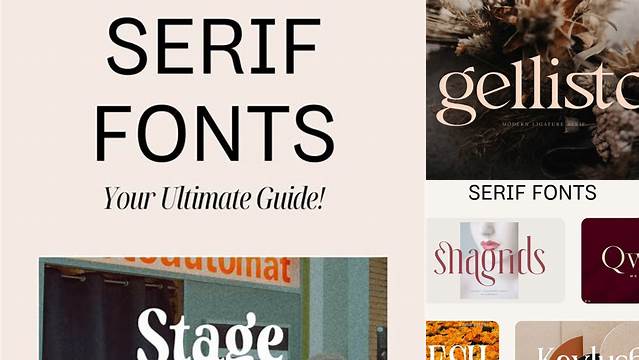
Serif Fonts On DaFont: Your Ultimate Guide
Hey guys! Ever wondered about those elegant, classic-looking fonts with the little feet? Those are serif fonts, and they're super popular for a reason. If you're on the hunt for some amazing serif fonts, DaFont is a treasure trove. Let's dive into the world of serif fonts on DaFont and explore everything you need to know to make the best choice for your projects.
1. What are Serif Fonts?
Before we jump into DaFont, let's quickly cover what serif fonts actually are. Serif fonts are characterized by the small decorative strokes, or “serifs,” at the end of the letters' main strokes. These serifs give the font a more traditional and formal appearance, making them ideal for body text in books, newspapers, and magazines. Think of Times New Roman or Georgia; they’re classics for a reason. Serif fonts have a long history, dating back to the early days of printing, and they convey a sense of authority and readability. Choosing the right serif fonts can elevate your design and add a touch of sophistication. The presence of serifs also aids the eye in tracking text, which is why serif fonts are often preferred for long-form content. So, whether you're designing a book, a website, or even a simple document, understanding the nuances of serif fonts is crucial.
2. Why Use Serif Fonts?
So, why should you even bother with serif fonts? Well, they’re incredibly versatile! They bring a sense of tradition and formality, making them perfect for professional documents, books, and websites aiming for a classic feel. The serifs guide the reader's eye, making long paragraphs easier to read. For instance, if you're creating a website for a law firm or a historical society, serif fonts can add that extra layer of credibility and seriousness. Plus, many studies have shown that serif fonts can improve readability in print, reducing eye strain and making the text more engaging. Think about how often you encounter serif fonts in newspapers and novels; it's because they work! Beyond readability, serif fonts also have an aesthetic appeal. They can add character and personality to your design, creating a visual hierarchy and drawing attention to key elements. So, if you’re looking to convey trust, tradition, or readability, serif fonts are definitely the way to go. Whether it's for a formal invitation or a corporate report, the right serif font can make a world of difference.
3. DaFont: A Goldmine for Fonts
DaFont is like the ultimate playground for font lovers. It's a massive online archive where you can find thousands of fonts, including a huge variety of serif fonts, and many of them are free for personal use! Navigating DaFont is super easy, and you can preview each font before you download it. The site allows you to type in custom text, so you can see exactly how a font will look with your words. Plus, many of the fonts come with different weights and styles, giving you even more flexibility. DaFont's user-friendly interface makes it simple to filter by category, so you can quickly narrow down your search to just serif fonts. You can also check out the comments and ratings from other users to get an idea of the font's quality and usability. And remember to check the licensing agreement for each font, as some are only free for personal use, while others can be used commercially. With such a vast selection and easy-to-use features, DaFont is an invaluable resource for designers, students, and anyone else who loves typography.
4. Navigating Serif Fonts on DaFont
Okay, let’s get practical. When you land on DaFont, you’ll see a bunch of categories. Head straight to the “Serif” section. From there, you can filter by various subcategories like “Old School,” “Modern,” or “Fancy.” Play around with the filters to narrow your search. Want something elegant? Try the “Classic” or “Elegant” subcategories. Need something more readable for body text? Stick with “Regular” or “Basic.” Don't forget to use the preview text box to see how your specific words look in each font! This is super helpful because what looks good in a sample image might not work as well with your actual content. Another great feature is the ability to filter by license type, ensuring you’re only seeing fonts you can legally use for your project. DaFont also allows you to see fonts that are similar to one you like, which can help you discover new options you might not have found otherwise. So, take your time, explore the different serif fonts available, and find the perfect one for your needs. The more you explore, the better you’ll become at recognizing the subtle differences and unique characteristics of each font.
5. Popular Serif Font Styles on DaFont
DaFont offers a plethora of serif font styles. You’ve got your classic Old Style serifs, which are timeless and perfect for traditional projects. Then there are the Transitional serifs, a bit more modern and sleek. Slab serifs are bold and blocky, ideal for headlines or adding a vintage touch. And let’s not forget the Modern serifs, which are known for their high contrast and elegant lines. Each style brings a different vibe, so consider your project's overall tone when choosing. Old Style serifs, like Garamond and Caslon, evoke a sense of history and tradition, making them perfect for books or formal documents. Transitional serifs, such as Baskerville, offer a balance between classic and contemporary, working well in a variety of contexts. Slab serifs, like Courier New, have a strong, industrial feel, often used in vintage designs or for technical writing. Modern serifs, like Didot and Bodoni, exude sophistication and are frequently used in fashion magazines and high-end branding. By understanding these different styles, you can make a more informed choice and select the serif font that best aligns with your creative vision.
6. Classic Serif Fonts for Formal Projects
When it comes to formal projects, you can't go wrong with classic serif fonts. Think fonts like Times New Roman, Garamond, and Georgia. These fonts have a timeless elegance and are highly readable, making them ideal for documents like resumes, legal papers, or academic articles. Times New Roman is practically synonymous with professionalism, while Garamond adds a touch of sophistication. Georgia is another great option, especially for digital use, as it’s designed to be highly legible on screens. These classic serif fonts have stood the test of time because they are versatile and effective. They convey a sense of authority and tradition, making them perfect for any project that needs to be taken seriously. Beyond their readability, these fonts also have a certain visual appeal that adds to the overall impression of professionalism. For instance, using Garamond in a formal invitation can elevate the design and make it feel more refined. When selecting a classic serif font, consider the overall tone of your project and choose the font that best aligns with your message.
7. Modern Serif Fonts for a Contemporary Look
If you're aiming for a more contemporary vibe, modern serif fonts are your best bet. These fonts often have a higher contrast between thick and thin strokes, giving them a sleek and stylish appearance. Fonts like Didot and Bodoni are excellent examples. They’re often used in fashion magazines and high-end branding. Modern serif fonts can add a touch of elegance and sophistication to your designs, making them perfect for projects that need to look cutting-edge. However, it's important to use them judiciously, as their high contrast can sometimes make them less readable in large blocks of text. For headlines and shorter pieces of text, they can be incredibly impactful, drawing the eye and making a statement. When choosing a modern serif font, consider the overall aesthetic of your project and whether the font complements your other design elements. These fonts can be quite distinctive, so they work best when used in moderation and with careful attention to spacing and layout. The right modern serif font can transform your project from ordinary to extraordinary, adding a touch of sophistication and style.
8. Slab Serif Fonts for Bold Statements
Need to make a bold statement? Slab serif fonts are the way to go! These fonts have thick, block-like serifs that give them a strong and sturdy appearance. Think of fonts like Rockwell or Courier New. They’re perfect for headlines, posters, and anything else where you want to grab attention. Slab serif fonts have a vintage, industrial feel, making them great for designs that need a retro touch. They also work well in logos and branding materials, conveying a sense of reliability and strength. The bold serifs make these fonts highly legible, even at smaller sizes, making them versatile for a variety of applications. When using slab serif fonts, consider the overall balance of your design. Their strong presence can sometimes overwhelm other elements, so it's important to use them thoughtfully. Pair them with a simpler sans-serif font for body text to create a balanced and visually appealing layout. The right slab serif font can add character and impact to your project, making it stand out from the crowd.
9. Transitional Serif Fonts: The Perfect Middle Ground
Transitional serif fonts strike a beautiful balance between classic and modern styles. They're a versatile choice for projects that need a touch of elegance without being overly formal. Fonts like Baskerville and Times New Roman are excellent examples. Transitional serifs offer a more refined and contemporary look compared to Old Style serifs, while still maintaining excellent readability. This makes them ideal for a wide range of applications, from books and magazines to websites and corporate materials. Their balanced design ensures they work well in both headlines and body text, making them a reliable choice for any project. When selecting a transitional serif font, consider the overall tone you want to convey. They can be adapted to fit both traditional and modern aesthetics, making them a versatile option for any designer. The subtle nuances in their design add a level of sophistication that can elevate your work. Whether you’re designing a website, a book cover, or a business card, a transitional serif font can provide the perfect middle ground between classic elegance and contemporary style.
10. Old Style Serif Fonts: Timeless Elegance
For a touch of timeless elegance, Old Style serif fonts are the perfect choice. These fonts have a classic, traditional feel that evokes a sense of history and sophistication. Fonts like Garamond and Caslon are quintessential examples. Old Style serifs are characterized by their subtle variations in stroke weight and their gentle, flowing serifs. This gives them a warm and inviting appearance, making them ideal for books, formal documents, and any project that needs a touch of old-world charm. Their excellent readability also makes them a popular choice for long-form text, as the serifs help guide the eye across the page. When using Old Style serif fonts, consider the overall context of your project. They work particularly well in designs that aim for a classic or vintage aesthetic. Pair them with complementary design elements and colors to create a cohesive and elegant look. The timeless appeal of Old Style serif fonts ensures that your project will have a sophisticated and enduring quality.
11. Best Serif Fonts for Body Text on DaFont
When choosing serif fonts for body text, readability is key. You want something that's easy on the eyes and won't tire your readers. On DaFont, you'll find plenty of great options. Fonts like Georgia, Book Antiqua, and Palatino are excellent choices. These fonts have been designed with readability in mind, featuring clear, well-defined letterforms and consistent spacing. They work well in both print and digital formats, making them versatile for a variety of projects. When selecting a serif font for body text, consider the overall tone of your project. You want a font that complements your content and enhances the reading experience. Test out different fonts with sample paragraphs to see how they look and feel. Pay attention to the spacing between letters and lines, as this can significantly impact readability. The right serif font can make all the difference in how your content is received, ensuring that your readers stay engaged and informed.
12. Top Serif Fonts for Headlines on DaFont
For headlines, you need serif fonts that grab attention and make a statement. DaFont has a fantastic selection of bold and stylish serif fonts that are perfect for headlines. Fonts like Playfair Display, Abril Fatface, and Bebas Neue (technically a sans-serif, but often paired with serifs) are great options. These fonts have strong personalities and can add a touch of drama to your designs. When choosing a serif font for headlines, consider the overall tone of your project. You want a font that reflects the message you're trying to convey. A bold slab serif can add a vintage or industrial feel, while a high-contrast modern serif can exude sophistication. Experiment with different fonts and styles to see what works best for your project. Don't be afraid to mix and match different serif fonts for headlines and body text to create a visually interesting and dynamic layout. The right headline font can draw readers in and make your content stand out.
13. Elegant Serif Fonts for Invitations and Cards
Creating invitations or cards? You'll want serif fonts that exude elegance and sophistication. Fonts like Cinzel, Mrs Eaves, and Didot are stunning choices. These fonts have graceful curves and delicate serifs that add a touch of class to any design. They’re perfect for formal events like weddings, anniversaries, or galas. When selecting serif fonts for invitations and cards, consider the overall theme and style of your event. A classic serif can add a traditional touch, while a modern serif can create a more contemporary feel. Pay attention to the spacing and layout of your text, as this can significantly impact the overall look and feel of your design. Use a lighter weight for the body text to ensure readability, and a bolder weight for the headlines or important details. The right serif font can make your invitations and cards truly memorable.
14. Vintage Serif Fonts for Retro Designs
If you're working on a retro design, vintage serif fonts are a must. These fonts evoke a sense of nostalgia and add a unique charm to your projects. Fonts like Arvo, Playfair Display (again!), and Lora have a classic, vintage feel. They’re perfect for posters, logos, and any design that needs a touch of old-school cool. When choosing serif fonts for retro designs, consider the specific era you're trying to capture. Different fonts have different historical associations, so select one that aligns with your vision. Experiment with different weights and styles to create a dynamic and visually appealing layout. Pair your vintage serif font with other retro design elements, such as muted colors and distressed textures, to complete the look. The right serif font can transport your audience back in time and give your design an authentic vintage feel.
15. Serif Fonts with Character: Unique Options on DaFont
Looking for serif fonts with a bit of personality? DaFont has plenty of unique options that stand out from the crowd. Fonts like Aleo, Bitter, and Merriweather are distinctive and memorable. These fonts have subtle quirks and details that give them character, making them perfect for projects that need a touch of originality. When choosing serif fonts with character, consider the overall message you want to convey. A font with a unique flair can add a sense of playfulness or sophistication, depending on the design. Use these fonts sparingly, as their strong personalities can sometimes overwhelm other elements. Pair them with simpler fonts for body text to create a balanced and visually interesting layout. The right serif font with character can make your project truly unforgettable.
16. Pairing Serif Fonts with Sans-Serif Fonts
One of the best ways to create a visually appealing design is to pair serif fonts with sans-serif fonts. This creates contrast and hierarchy, making your text more engaging and readable. A classic combination is a serif font for headlines and a sans-serif font for body text. For example, you could pair Playfair Display (serif) with Montserrat (sans-serif) or Merriweather (serif) with Open Sans (sans-serif). When pairing serif fonts with sans-serif fonts, consider the overall tone of your project. You want fonts that complement each other and create a cohesive look. Experiment with different combinations to see what works best for your design. Pay attention to the weights and styles of the fonts, as this can significantly impact the overall effect. The right font pairing can elevate your design and make your text more impactful.
17. How to Download and Install Serif Fonts from DaFont
Downloading and installing serif fonts from DaFont is super easy. First, find a font you like and click the “Download” button. The font will typically download as a ZIP file. Once the download is complete, unzip the file. Inside, you'll usually find one or more font files, which are typically in .ttf or .otf format. To install the font on Windows, right-click the font file and select “Install.” On a Mac, double-click the font file, and it will open in Font Book, where you can click “Install Font.” Once the font is installed, it will be available in your word processing and design programs. Remember to restart your programs if you don't see the font right away. DaFont makes it simple to add a wide variety of serif fonts to your collection, allowing you to enhance your projects with beautiful typography.
18. Understanding Font Licensing on DaFont
It's crucial to understand font licensing on DaFont to make sure you're using fonts legally. Many fonts on DaFont are free for personal use but require a license for commercial use. Before using a font, always check the licensing information provided by the font creator. This information is typically found on the font's download page. Some fonts are completely free for any use, while others may have restrictions on how they can be used. If you're unsure about a font's licensing, it's always best to contact the font creator directly for clarification. Using a font without the proper license can lead to legal issues, so it's important to do your due diligence. DaFont provides clear licensing information for each font, making it easier for you to make informed decisions. Understanding font licensing ensures that you can use serif fonts confidently and legally in all your projects.
19. Free vs. Premium Serif Fonts: What's the Difference?
When choosing serif fonts, you’ll encounter both free and premium options. Free serif fonts, like those on DaFont, are great for personal projects or situations where budget is a concern. However, they might have limitations in terms of features or quality. Premium serif fonts, on the other hand, are typically more polished and come with a wider range of styles and weights. They often include additional features like ligatures and alternate characters, giving you more flexibility in your designs. Premium fonts also tend to have better support and updates from the font creators. The main difference often comes down to the level of refinement and the scope of the font family. While free serif fonts can be excellent, premium options often offer a professional touch that can elevate your work. Consider the needs of your project and your budget when deciding between free and premium serif fonts.
20. Tips for Choosing the Right Serif Font for Your Project
Choosing the right serif font for your project can feel overwhelming, but here are a few tips to help you out. First, consider the overall tone and message of your project. Do you want to convey professionalism, elegance, or something else? Your font should align with this tone. Next, think about the readability of the font, especially for body text. Choose a font that's easy on the eyes and won't tire your readers. Experiment with different font pairings to create a visually appealing layout. Don't be afraid to try different combinations of serif fonts and sans-serif fonts. Finally, always check the font's licensing to ensure you can use it legally for your project. By following these tips, you can confidently choose the perfect serif font for your needs.
21. Serif Fonts for Branding: Creating a Visual Identity
Serif fonts play a crucial role in branding, helping to establish a visual identity that resonates with your target audience. A well-chosen serif font can convey trustworthiness, tradition, or elegance, depending on the specific style. For brands aiming for a classic or sophisticated image, fonts like Garamond or Times New Roman can be excellent choices. On the other hand, modern serif fonts like Didot can create a high-end, fashionable look. When selecting a serif font for branding, consider your brand's values and personality. The font should be consistent with your overall brand message and appeal to your target demographic. Additionally, ensure the font is legible across various platforms, from your website to business cards. A cohesive font choice reinforces your brand’s identity, making it recognizable and memorable. Effective branding relies on consistent typography, and the right serif font can be a key element in achieving that consistency.
22. Serif Fonts in Web Design: Enhancing Readability and Aesthetics
In web design, serif fonts can significantly enhance both readability and aesthetics. While sans-serif fonts have long been favored for on-screen text, modern web technologies allow serif fonts to render beautifully on digital devices. Using serif fonts for body text can improve readability, as the serifs guide the eye along the lines. For headlines and titles, a bold serif font can add a touch of elegance and sophistication. When choosing serif fonts for your website, consider the overall design and user experience. Ensure the font is legible on different screen sizes and devices. Pair your serif font with a complementary sans-serif font for a balanced and visually appealing design. A well-chosen serif font can make your website more engaging and professional, helping to create a positive user experience. Remember to test your font choices across various browsers and devices to ensure consistent rendering.
23. Serif Fonts in Print Design: From Books to Brochures
Serif fonts are a staple in print design, offering timeless elegance and excellent readability for a wide range of applications. From books and magazines to brochures and business cards, serif fonts provide a classic and professional look. For long-form text, such as in books, serif fonts like Garamond or Caslon are ideal due to their readability and traditional appeal. For brochures and other marketing materials, a bold serif font can create impactful headlines that draw the reader’s eye. When using serif fonts in print design, consider the paper type and printing method. The font should render clearly and legibly, even at smaller sizes. Pair your serif font with appropriate design elements to create a cohesive and visually appealing layout. The right serif font can elevate your print design, making it both beautiful and effective.
24. Using Serif Fonts in Logos: Creating a Lasting Impression
Serif fonts can be a powerful tool for creating memorable and impactful logos. A well-chosen serif font can convey a sense of tradition, reliability, or sophistication, depending on the brand's identity. Classic serif fonts like Times New Roman or Georgia can create a sense of authority and trustworthiness, making them suitable for law firms or financial institutions. Modern serif fonts like Didot can add a touch of elegance and luxury, ideal for fashion or beauty brands. When designing a logo with a serif font, consider the font's weight, style, and letterforms. Ensure the font is legible and scalable, so it looks good in both large and small sizes. Pair your serif font with appropriate colors and design elements to create a cohesive and visually appealing logo. A strong logo design with a serif font can help your brand stand out and leave a lasting impression.
25. The Psychology of Serif Fonts: What Message Are You Sending?
The choice of serif font can significantly impact the message you're sending to your audience. Different serif fonts evoke different emotions and associations, making them powerful tools for communication. Classic serif fonts often convey a sense of tradition, authority, and trustworthiness, while modern serif fonts can project elegance and sophistication. Slab serif fonts have a bold and sturdy feel, making them suitable for brands aiming to convey strength and reliability. Understanding the psychology of serif fonts can help you make informed decisions about your typography. When selecting a font, consider the message you want to send and choose a font that aligns with your brand's personality and values. The right serif font can help you connect with your audience on an emotional level and create a lasting impression.
26. Common Mistakes to Avoid When Using Serif Fonts
Using serif fonts effectively requires attention to detail, and avoiding common mistakes can make a big difference in your design. One common mistake is using too many different serif fonts in the same project, which can create a cluttered and inconsistent look. Stick to a maximum of two serif fonts for a more cohesive design. Another mistake is choosing a serif font that's not legible, especially for body text. Readability is crucial, so select fonts that are easy on the eyes. Overusing decorative serif fonts can also detract from the overall design. Use these fonts sparingly, and pair them with simpler fonts for a balanced look. Finally, neglecting font licensing can lead to legal issues. Always check the licensing terms before using a font in your project. By avoiding these common mistakes, you can ensure your serif font choices enhance your design.
27. Serif Font Trends: What's Popular Now?
Typography trends evolve over time, and staying up-to-date with the latest serif font trends can help your designs feel current and relevant. Currently, there's a resurgence of interest in classic serif fonts with a modern twist. Designers are experimenting with unique weights and styles to create fresh and innovative looks. High-contrast serif fonts, like Didot and Bodoni, are also popular for adding a touch of elegance and sophistication. Slab serif fonts continue to be a favorite for bold headlines and vintage-inspired designs. Additionally, pairing serif fonts with unexpected sans-serif fonts is a trend that adds visual interest and personality to designs. By keeping an eye on these trends, you can make informed font choices that align with contemporary design aesthetics and elevate your projects.
28. Resources for Learning More About Serif Fonts
If you're eager to deepen your knowledge of serif fonts, there are numerous resources available to help you learn more. Online typography guides and tutorials offer comprehensive information about different serif font styles and their uses. Websites like Fonts.com and Typewolf provide in-depth analyses of various serif fonts and their characteristics. Design blogs and forums often feature discussions about typography trends and best practices, offering valuable insights from industry professionals. Books on typography and graphic design are also excellent resources for learning about the history, theory, and application of serif fonts. Additionally, experimenting with different serif fonts in your own projects is a great way to develop your understanding and skills. By exploring these resources, you can become a more confident and informed user of serif fonts.
29. DaFont Alternatives: Where Else to Find Great Serif Fonts
While DaFont is a fantastic resource for serif fonts, it's always good to explore other options as well. Websites like Google Fonts offer a wide selection of free, open-source serif fonts that are ideal for web projects. Adobe Fonts provides access to a vast library of high-quality serif fonts as part of an Adobe Creative Cloud subscription. MyFonts is a popular marketplace for purchasing premium serif fonts from independent foundries. Font Squirrel offers a curated collection of free serif fonts that are licensed for commercial use. Creative Market is another great platform for finding unique and stylish serif fonts from independent designers. Exploring these alternatives can help you discover new and exciting serif fonts for your projects, expanding your typographic palette and enhancing your design capabilities.
30. The Future of Serif Fonts: What's Next?
The future of serif fonts is bright, with ongoing innovations and evolving design trends shaping their use in exciting ways. Technological advancements in font rendering and display technologies are allowing serif fonts to shine in digital environments, enhancing readability and aesthetics on screens. Designers are experimenting with variable fonts, which offer greater flexibility in adjusting font weights and styles, leading to more dynamic and personalized typography. The resurgence of vintage and retro design styles is also fueling renewed interest in classic serif fonts. Furthermore, the growing emphasis on accessibility in design is driving the development of serif fonts that are optimized for users with visual impairments. As design trends continue to evolve, serif fonts will remain a vital tool for communication and expression, adapting to new technologies and creative visions. The future of serif fonts is one of innovation, versatility, and enduring appeal.